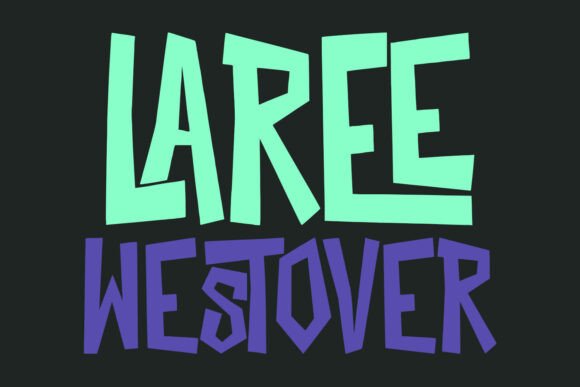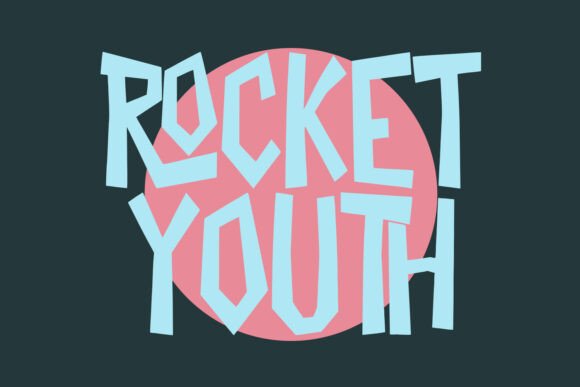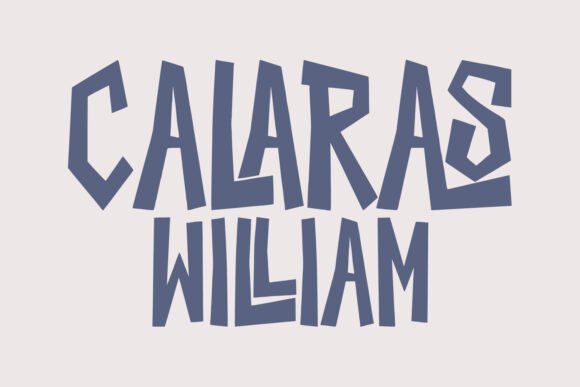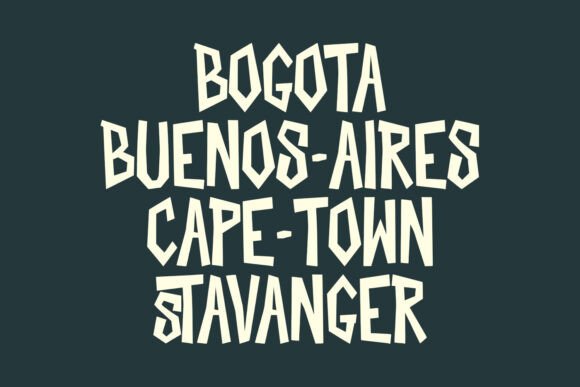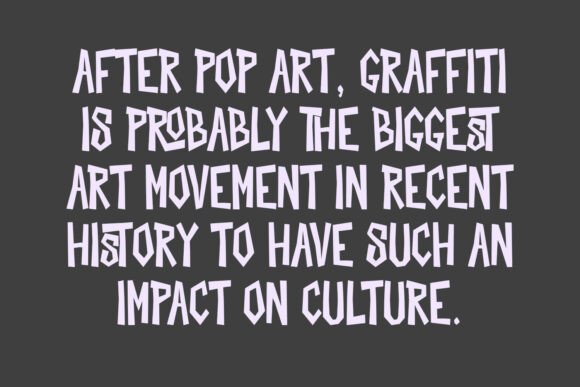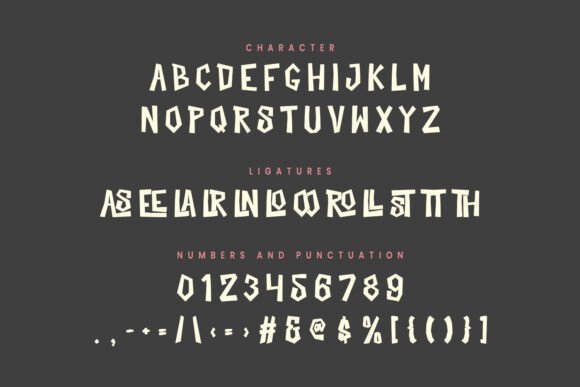
Introducing Asroll Font: The Ultimate Graffiti Display Font for Creative Minds
Are you a designer, crafter, or artist looking for a unique and creative way to express yourself? Look no further than Asroll Font, a handmade brush display font that is sure to take your work to the next level. With its fun and playful characters, ligatures, and multilingual support, Asroll Font is the perfect addition to any creative project.
The Story Behind Asroll Font
Asroll Font is a carefully crafted graffiti display font that is designed to inspire creativity and self-expression. Its handmade brush style gives it a unique, organic feel that is perfect for adding a personal touch to any design. Whether you’re working on a logo, poster, or social media graphic, Asroll Font is sure to make your work stand out.
Key Features of Asroll Font
- Graffiti Display Font: Asroll Font is a bold and eye-catching graffiti display font that is perfect for making a statement.
- Fun Characters: With a range of fun and playful characters, Asroll Font is sure to add a touch of personality to any design.
- Ligatures: Asroll Font includes ligatures, which allow you to create unique and creative combinations of letters.
- Multilingual Support: Asroll Font supports a wide range of languages, making it the perfect choice for designers and crafters who work with international clients.
- Handmade Brush Style: The handmade brush style of Asroll Font gives it a unique, organic feel that is perfect for adding a personal touch to any design.
Why Choose Asroll Font?
So why choose Asroll Font for your next creative project? Here are just a few reasons:
- Unique and Creative: Asroll Font is a truly unique and creative font that will help your work stand out from the crowd.
- Versatile: Asroll Font can be used for a wide range of creative projects, from logos and posters to social media graphics and more.
- High-Quality: Asroll Font is a high-quality font that is designed to deliver exceptional results.
Tips and Tricks for Getting the Most Out of Asroll Font
Here are a few tips and tricks for getting the most out of Asroll Font:
- Experiment with Different Colors: Asroll Font looks great in a wide range of colors, so don’t be afraid to experiment and find the perfect color for your design.
- Use Ligatures: Ligatures are a great way to add a touch of personality to your design. Experiment with different ligature combinations to find the one that works best for your project.
- Mix and Match with Other Fonts: Asroll Font can be paired with a wide range of other fonts to create a unique and creative look.
In conclusion, Asroll Font is a unique and creative graffiti display font that is perfect for designers, crafters, and artists who want to add a personal touch to their work. With its handmade brush style, fun characters, ligatures, and multilingual support, Asroll Font is the perfect addition to any creative project. So why wait? Download Asroll Font today and start creating something amazing!